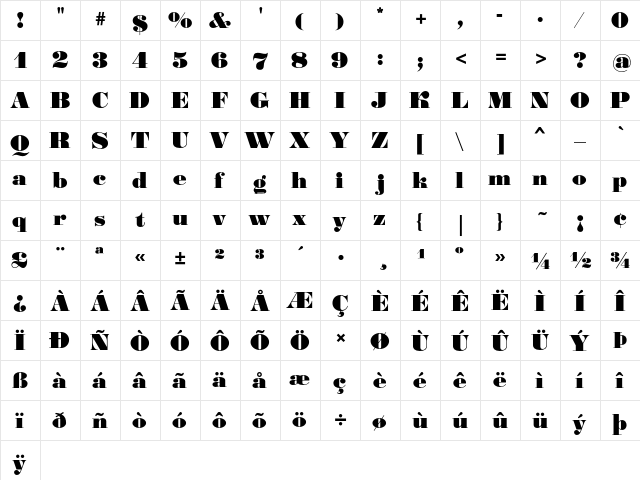
Gourmandise Bold Font Preview
Gourmandise Bold
Design Context for Gourmandise Typeface
Gourmandise offers clean, dependable letterforms without strong stylistic allegiance, making it a practical choice for designers who need flexibility. The heavy weight commands attention and anchors typographic hierarchies.